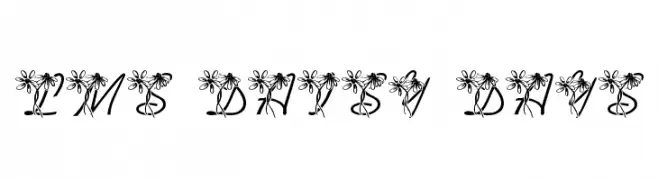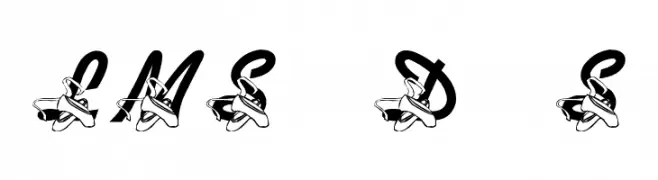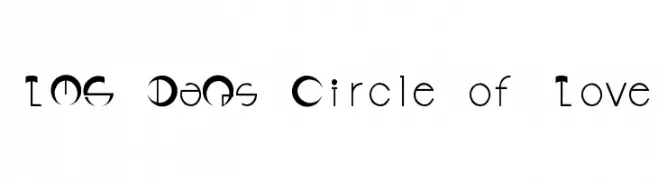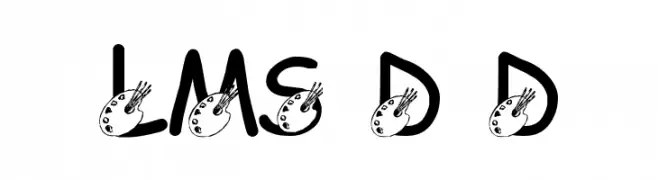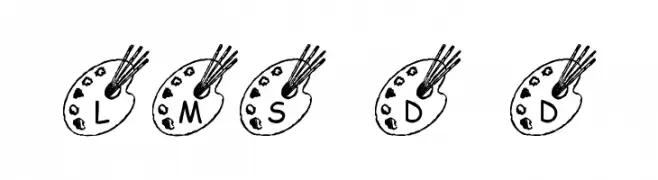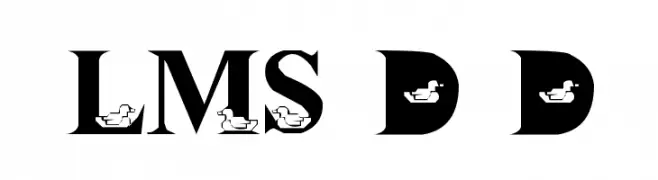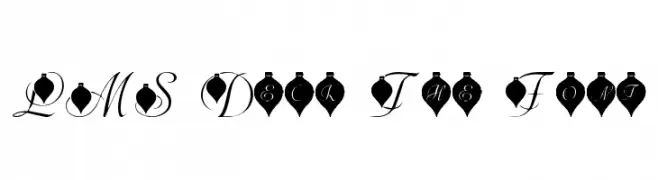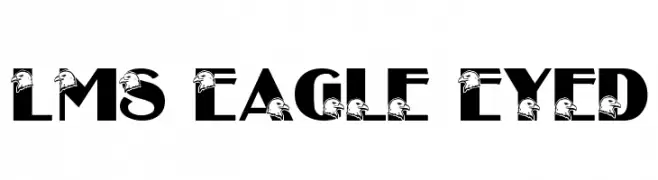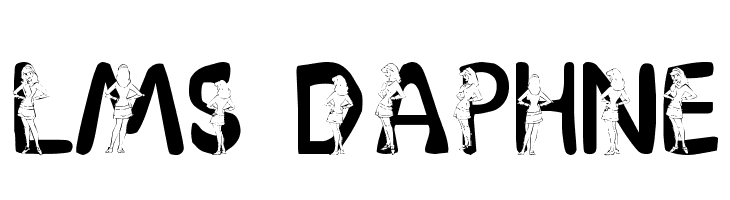
A whimsical font with daisy-like floral embellishments on each character.
A bold, cursive font with decorative dance shoe elements.
A whimsical, decorative font with intricate patterns and playful illustrations.
A modern, geometric font with circular motifs and dynamic contrast.
A bold, artistic font with palette embellishments for a creative touch.
A playful font with characters inside painter's palettes, ideal for creative projects.
A decorative serif font with playful duck illustrations in each letter.
An elegant, ornament-themed decorative font with high contrast script characters.
A bold, decorative font featuring an eagle motif integrated into each letter.